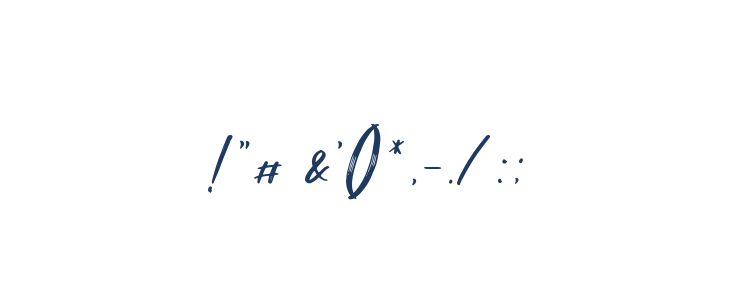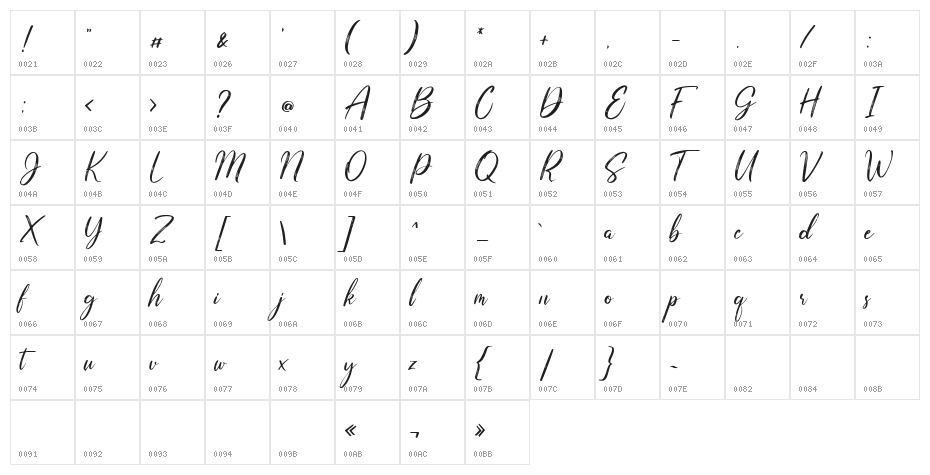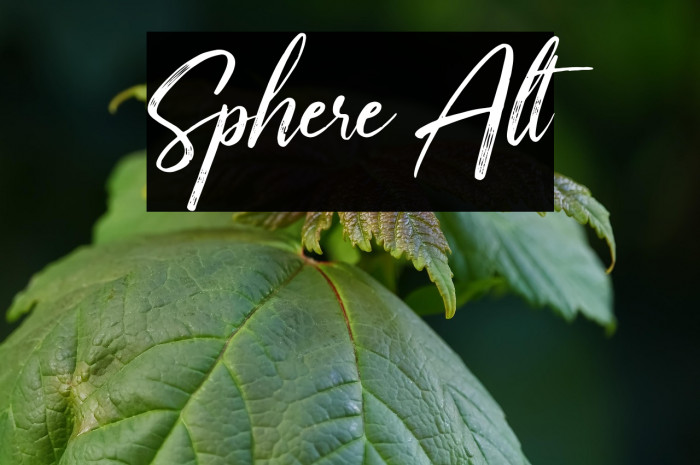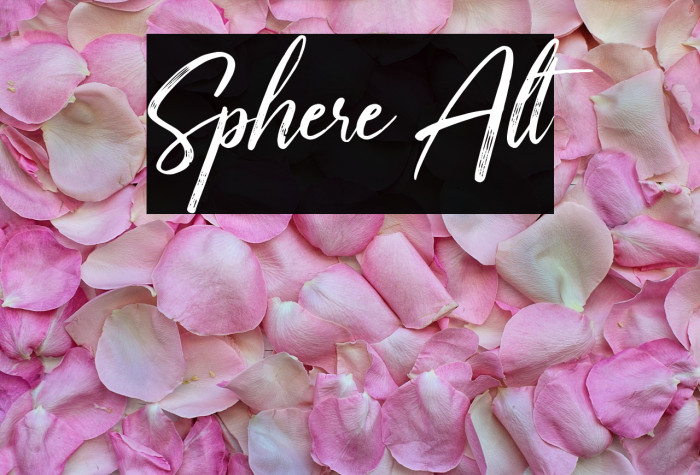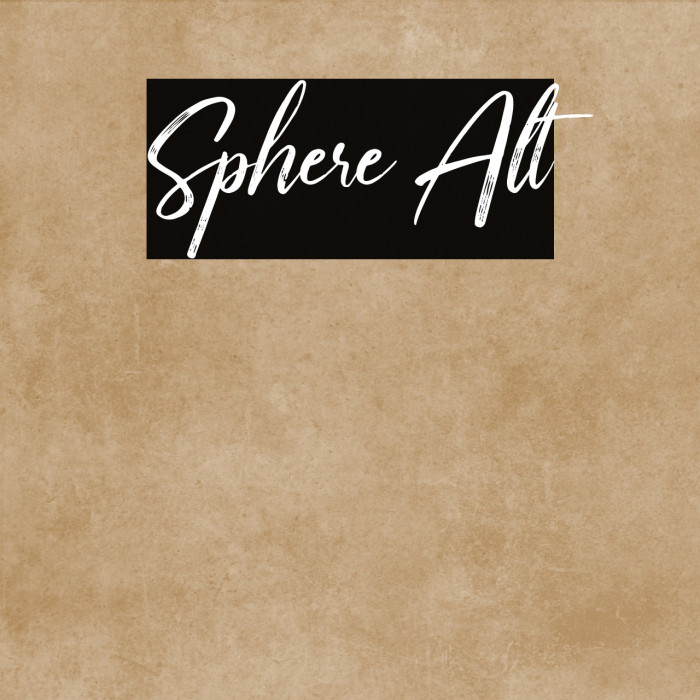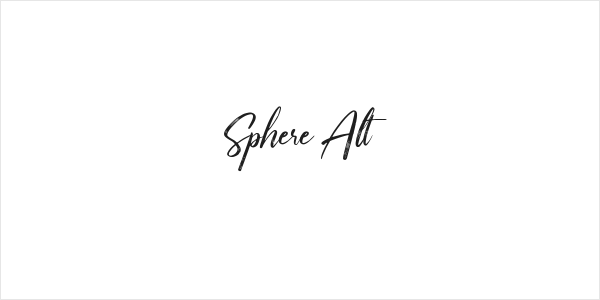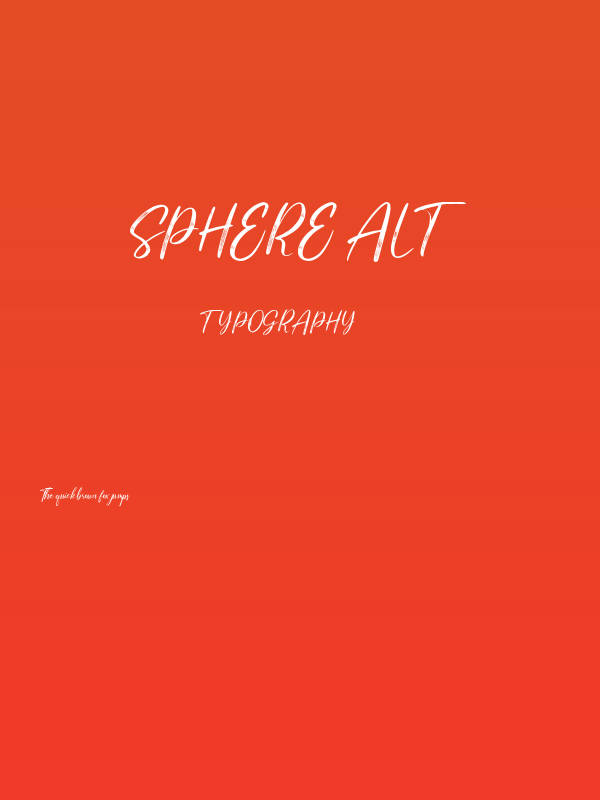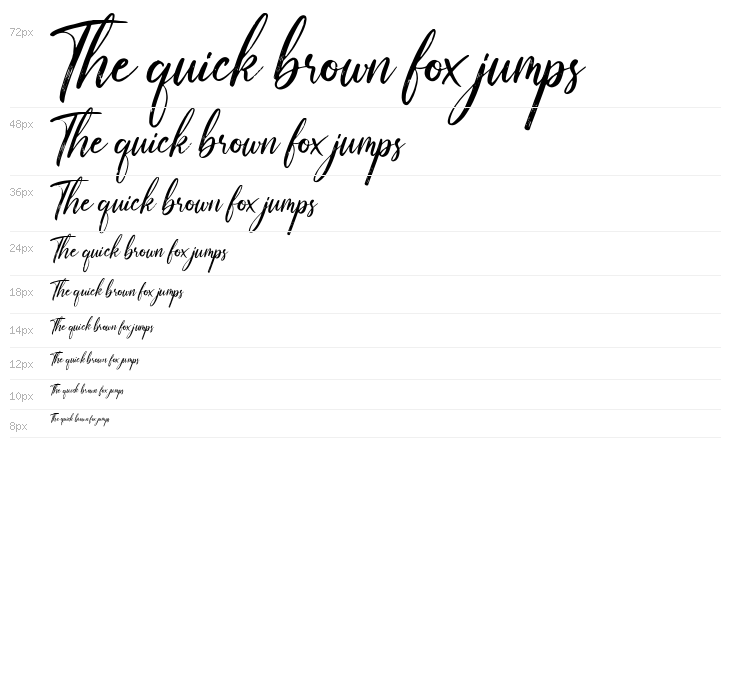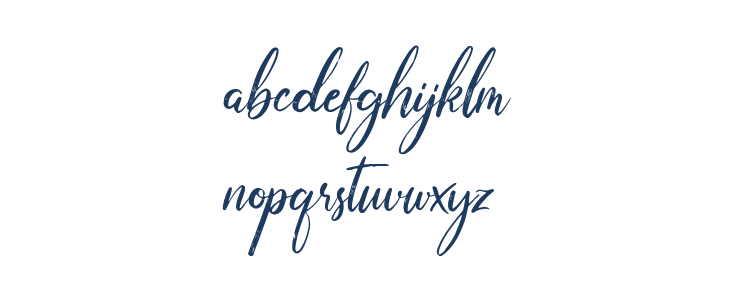
Sphere Alt Font
Sphere Alt Description
This font exudes a dynamic and energetic style, characterized by its fluid, cursive script that mimics the natural flow of handwriting. The letters are elegantly slanted, with a consistent stroke that varies in thickness, adding a sense of movement and grace. The uppercase letters are bold and prominent, while the lowercase letters maintain a delicate balance, offering a harmonious blend. The font's playful yet sophisticated appearance makes it versatile for various design applications. Its unique flair is further enhanced by the inclusion of special characters, which are seamlessly integrated into the overall design.
| Proposed Projects | Ideal for wedding invitations, greeting cards, branding projects, and social media graphics. |